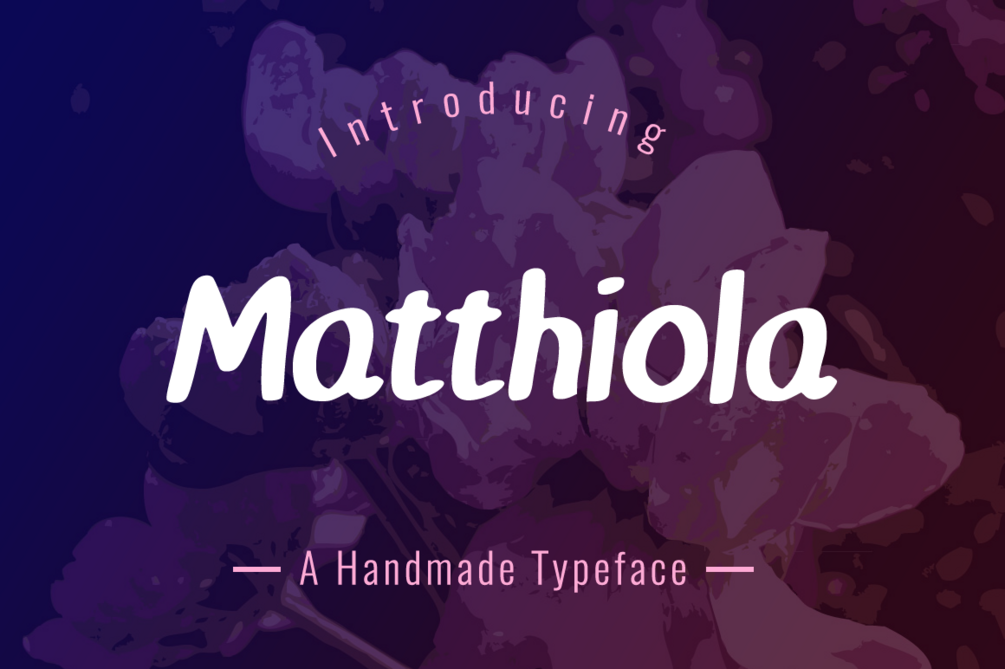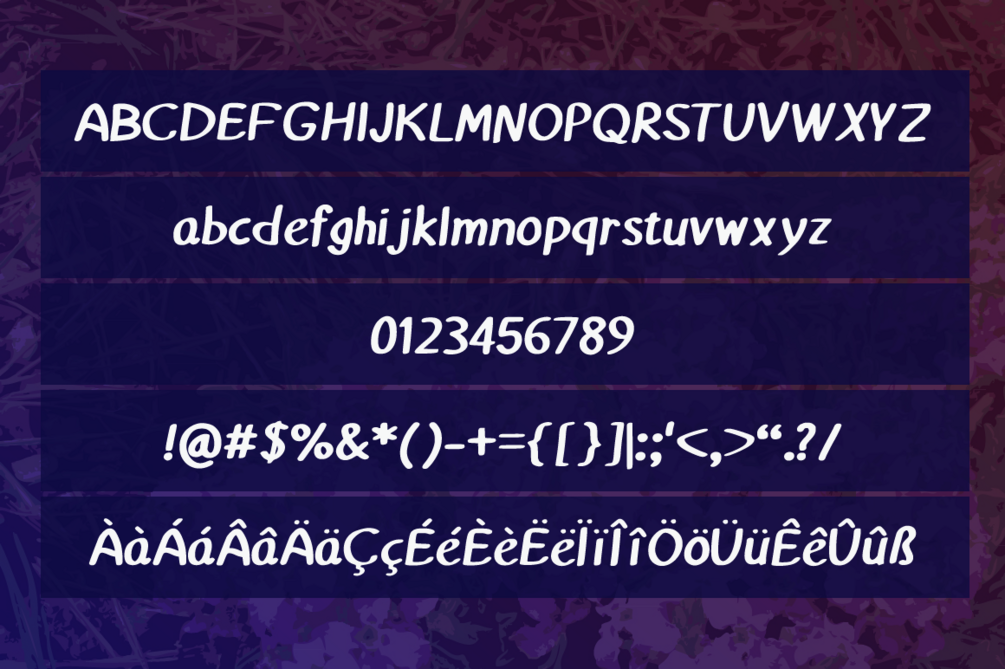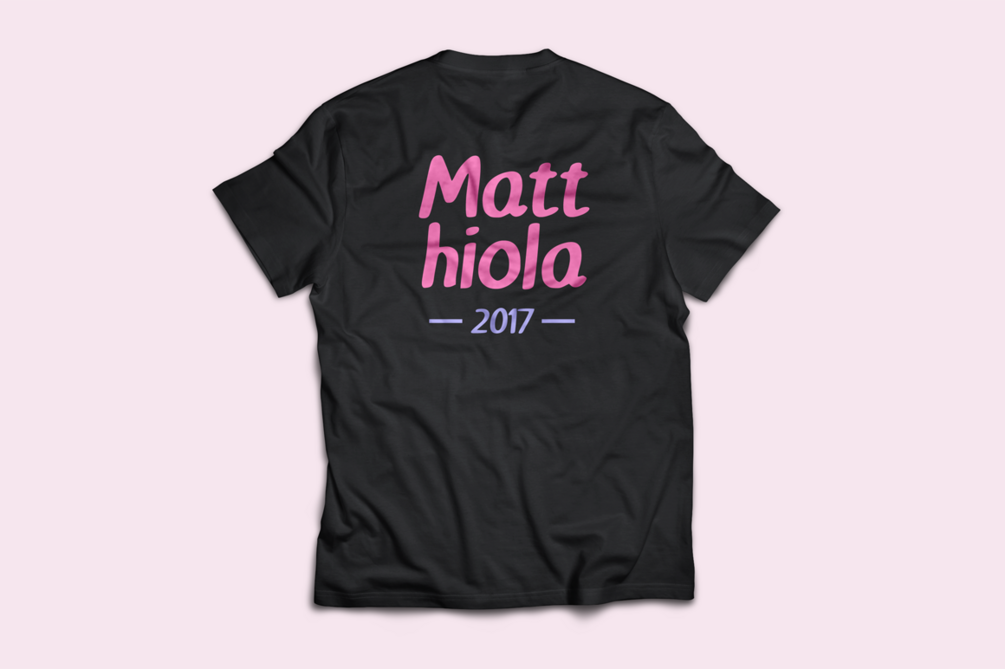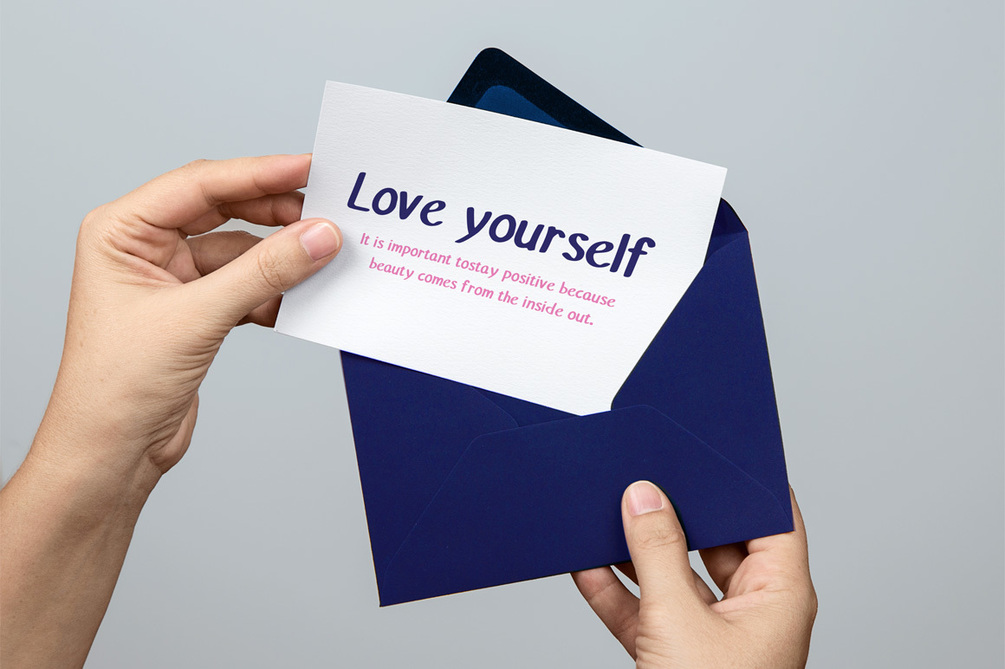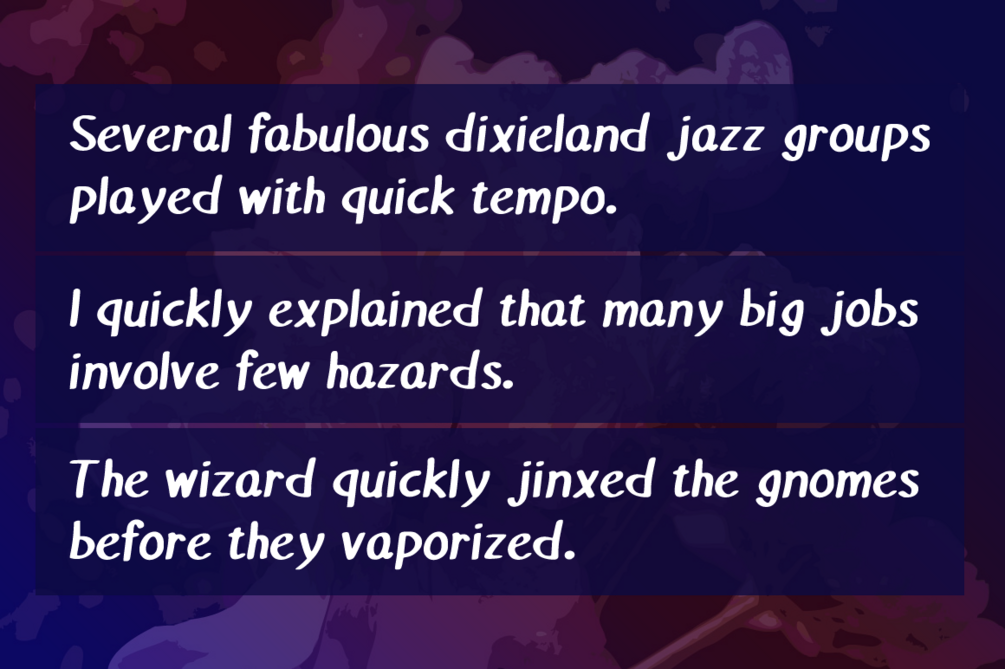
Matthiola Typeface
Matthiola is a fresh modern display font. Matthiola is perfectly suited to stationery, logos, t-shirt, paper, print design, website header, photo frame, flyer, music cover, poster, image slider and much more.
Includes a range of multilingual support